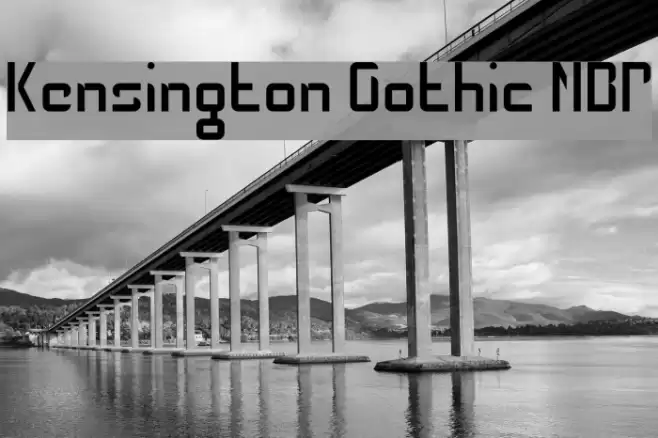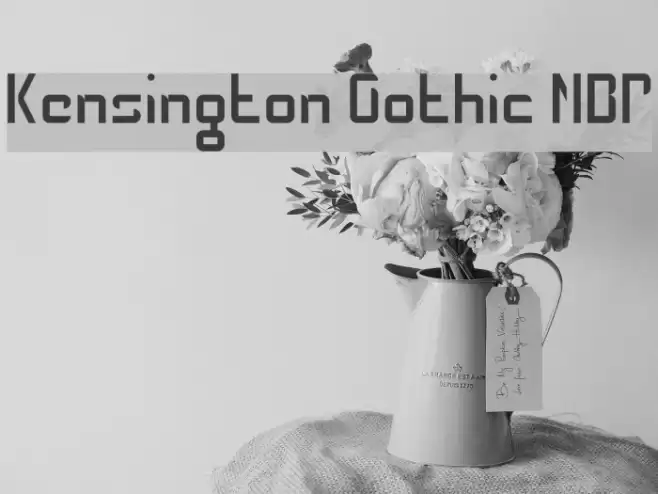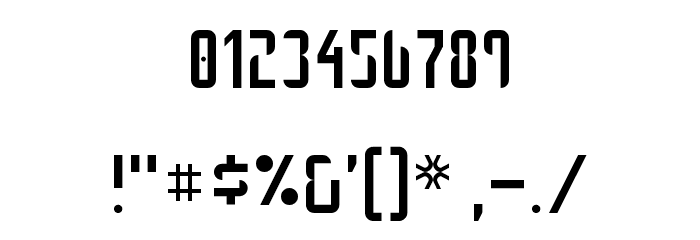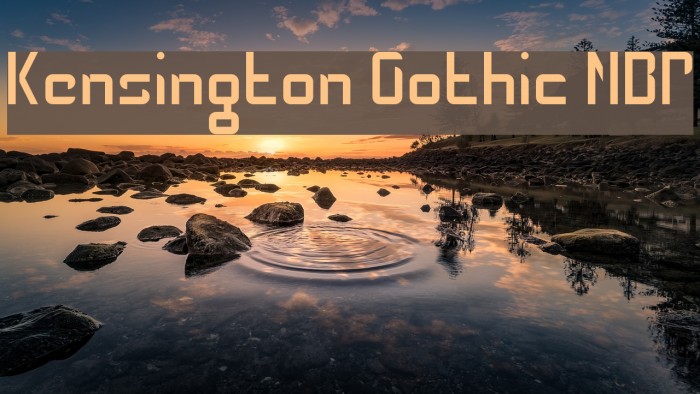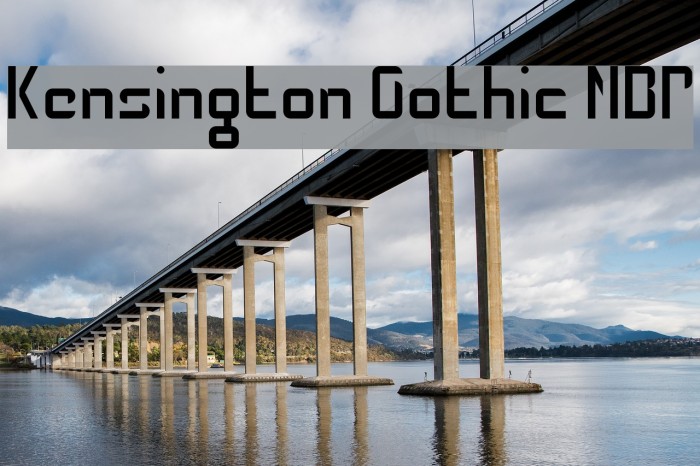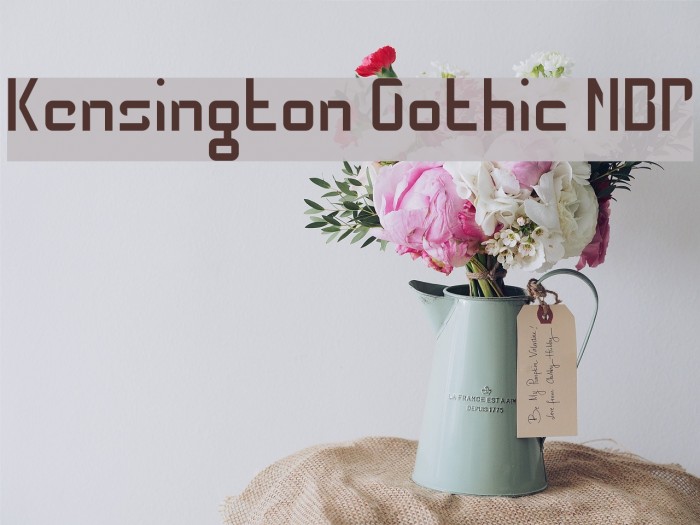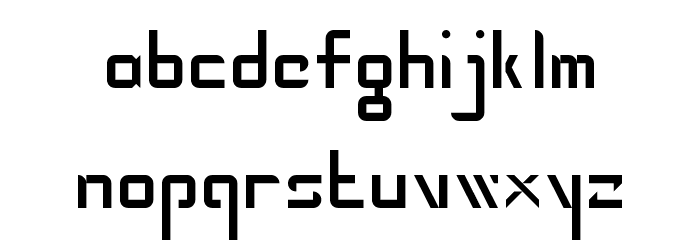
Kensington Gothic NBP Font
Kensington Gothic NBP Description
This font features a modern and geometric design with a distinct futuristic flair. The characters are constructed with sharp angles and clean lines, giving it a sleek and contemporary appearance. The uppercase letters are bold and commanding, while the lowercase letters maintain a consistent style with slightly softer edges. The numerals are uniform and align well with the overall aesthetic. Special characters are designed to complement the alphanumeric characters, maintaining the geometric theme. This font is ideal for projects that require a modern and edgy look, making it suitable for technology-related designs, branding, and digital media.
A modern, geometric font with a futuristic and sleek design from Uncategorized fonts.